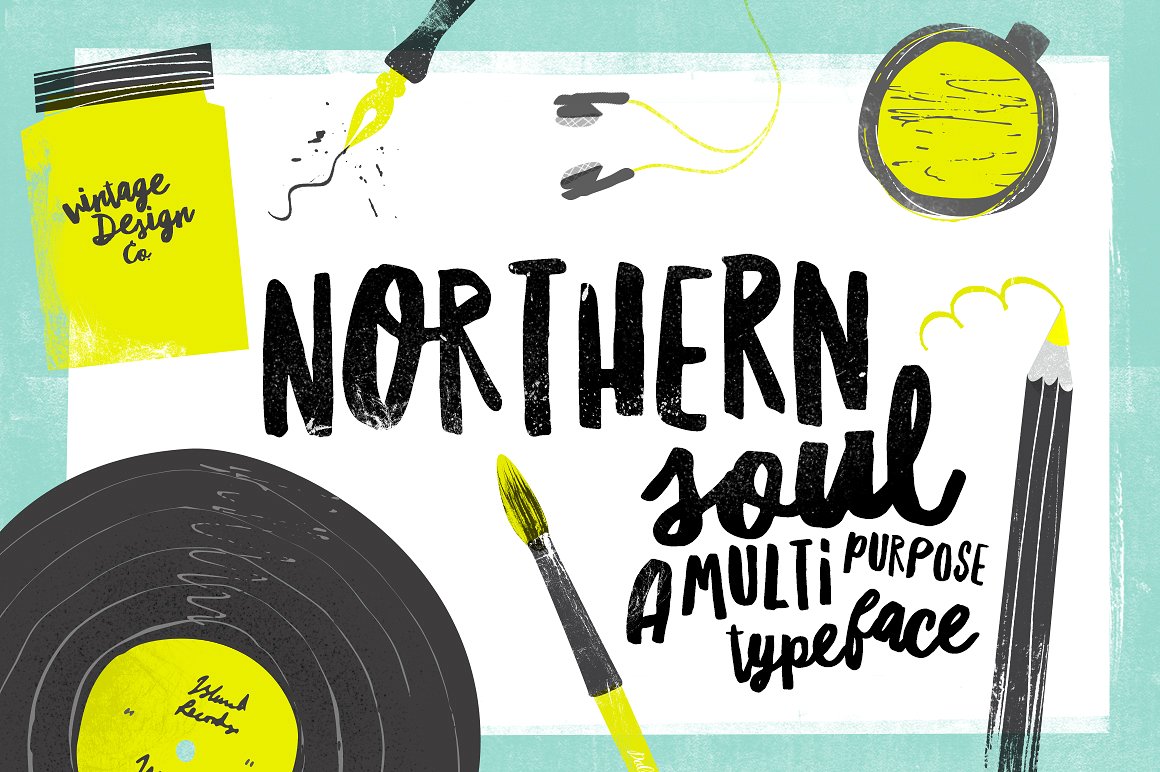
Northern Soul Brush
Northern Soul Brush Font
Northern Soul – Typeface
Every wanted to create hand lettered artwork but just don’t have the time to learn or practice the skill yourself? Say hello to Northern Soul. A brush typeface made specifically for that purpose. With two styles, caps and script, which fit perfectly together to add personality to your work.
Northern Soul Brush